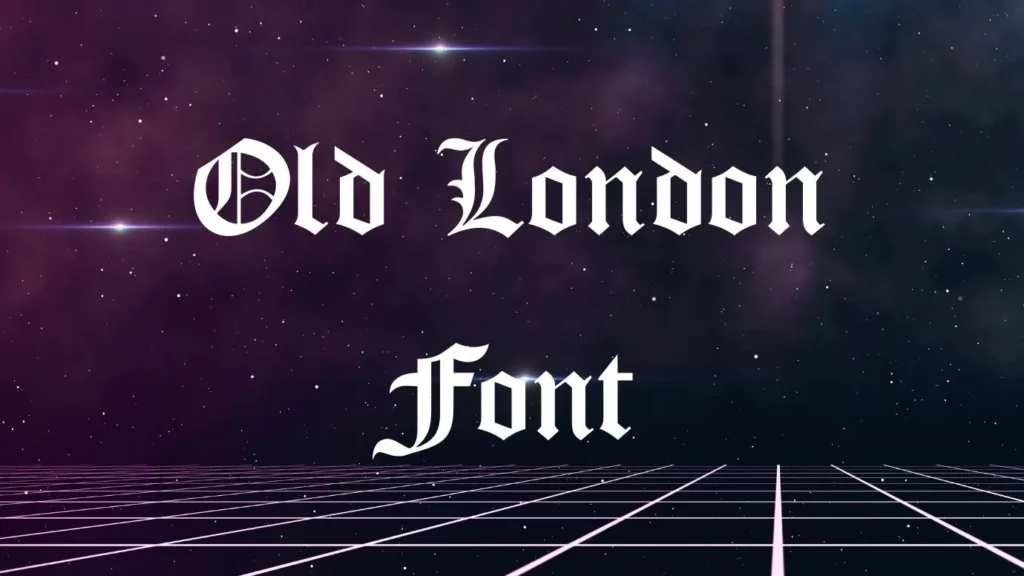
This creative extraordinary font was designed by very famous designer Dieter Steffmann, he created this Old London Font in different styles like regular, bold,
Today we are going to discuss the calligraphy bold typeface Old London Font which has 8 unique styles and amazing characters that give a perfect look to your projects. This typeface has a creative and gorgeous look that attracts many designers and clients and they used it in many commercials as well as fun projects.
This creative extraordinary font was designed by very famous designer Dieter Steffmann, he created this Old London Font in different styles like regular, bold, italic, semi-bold, etc. His hard work is seen in his work and got great attention from the other designers.
Old London typeface has a display nature that is perfect for the large screen as compared to the small screen. It has a highly condensed nature that is perfect for graphic designs. It comes with unique 148 characters and different styles, numbers, lowercase letters, uppercase letters, and punctuations.
Yes, the Old London typeface is a calligraphy font that comes in different styles and unique characters that can be used in several personal projects.
This texture is designed by very famous designer Dieter Steffmann, he created this Old London typeface in different styles like regular, bold, italic, semi-bold, etc.
Yes, there are many similar fonts but the closest one is halo handletter font which comes with the same characters and unique glyphs.